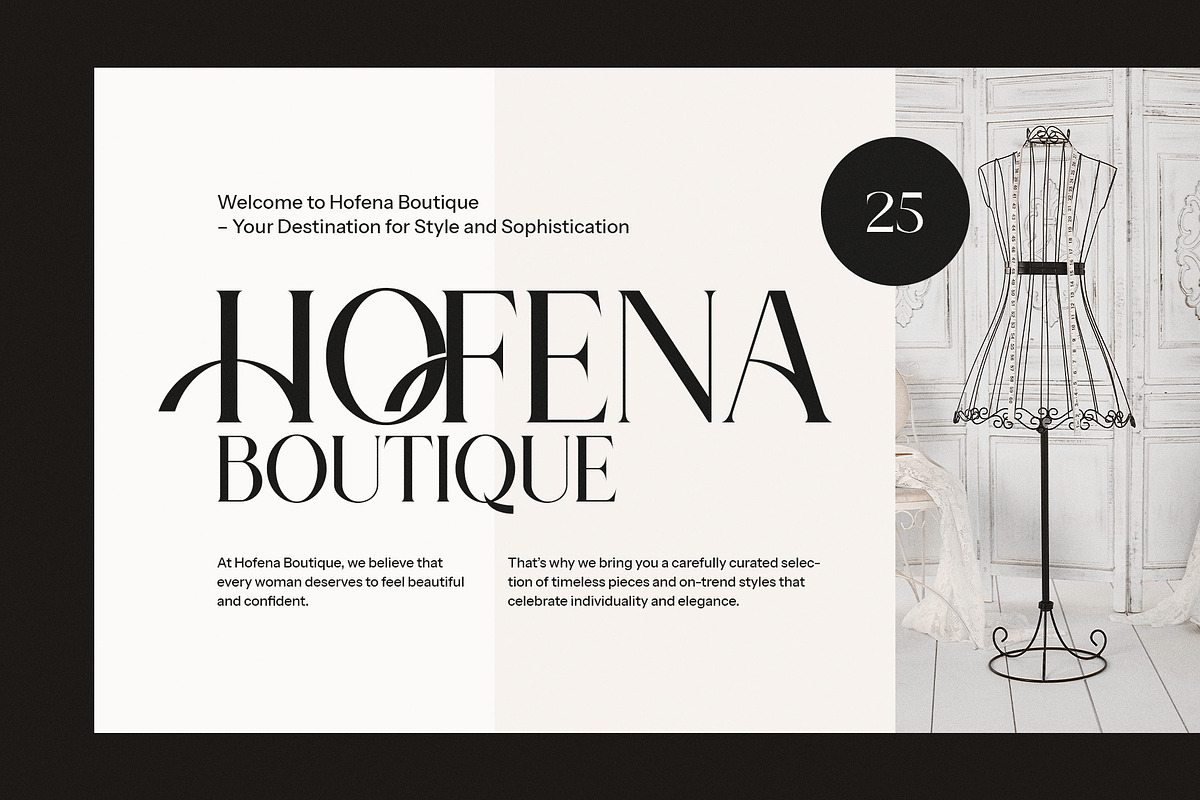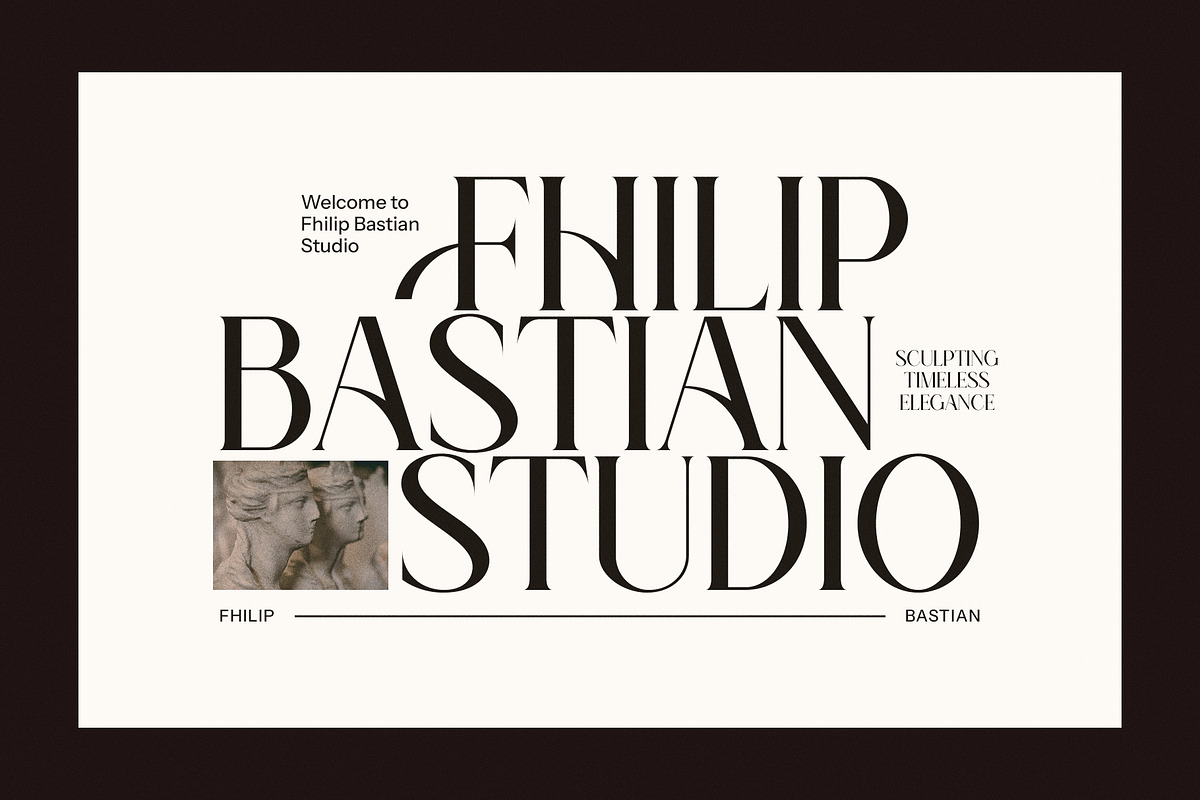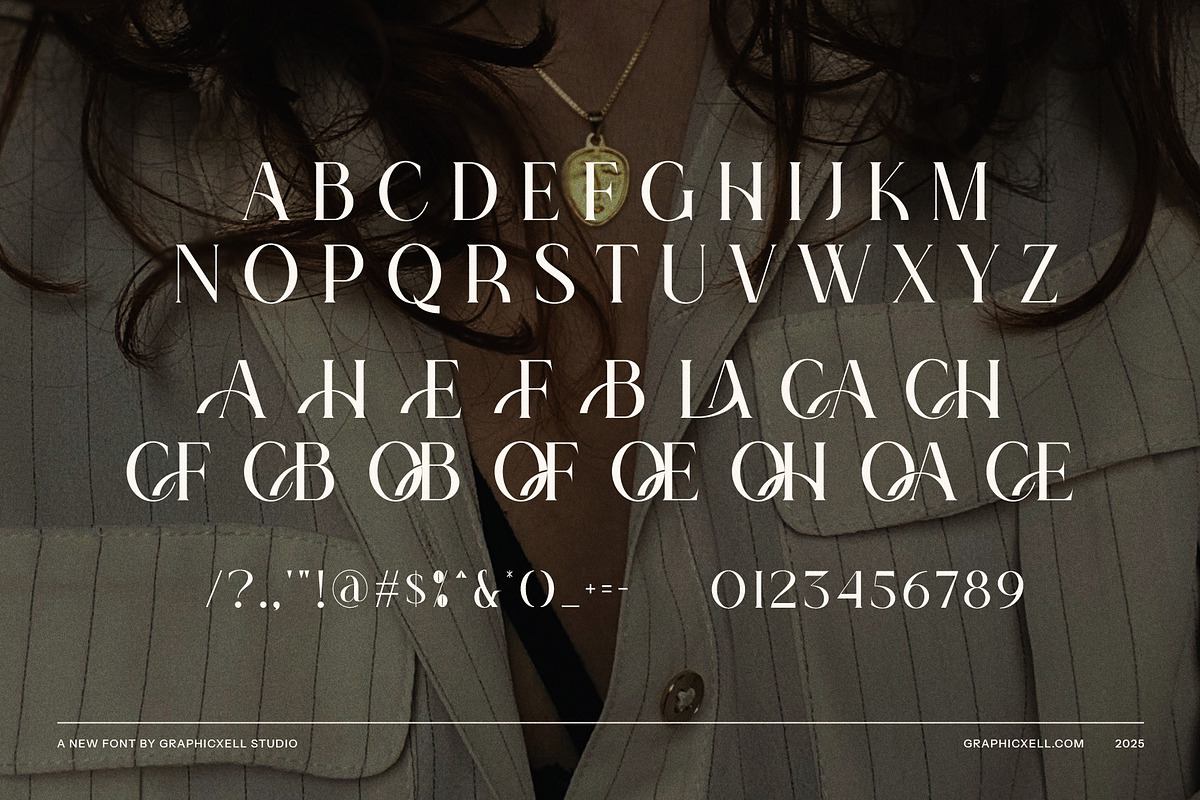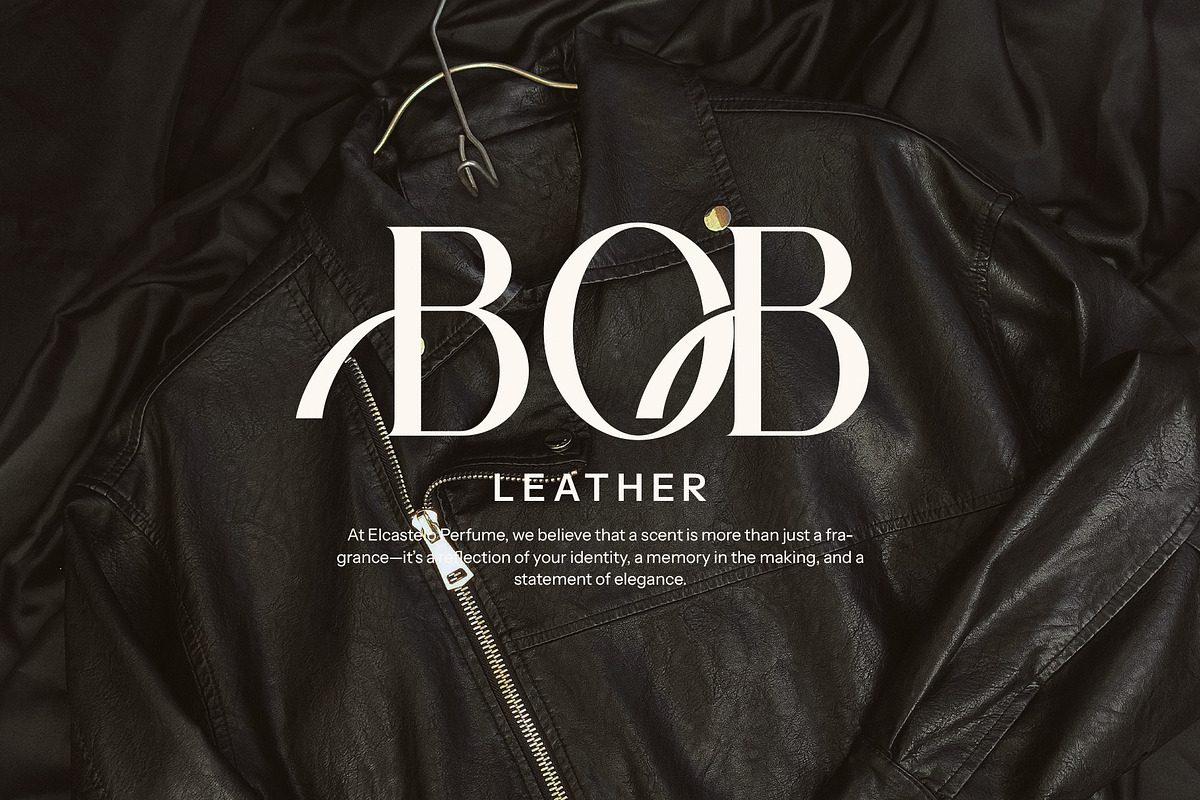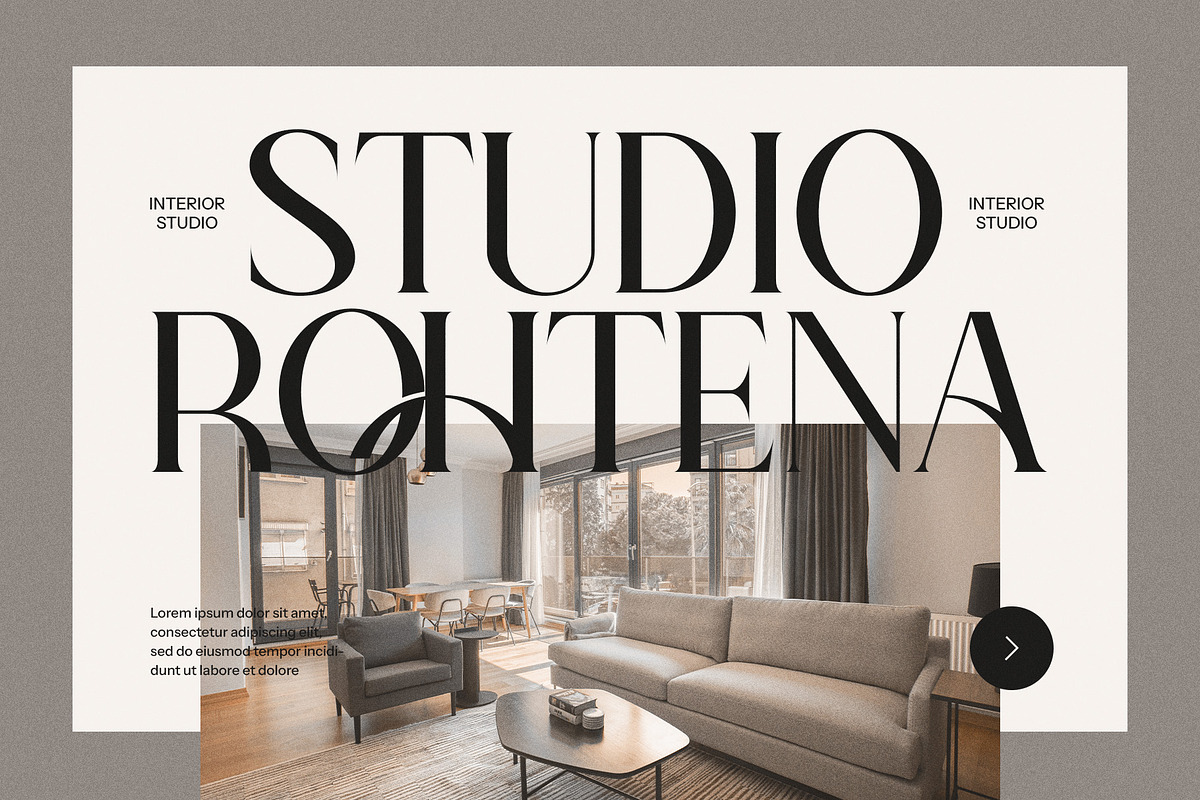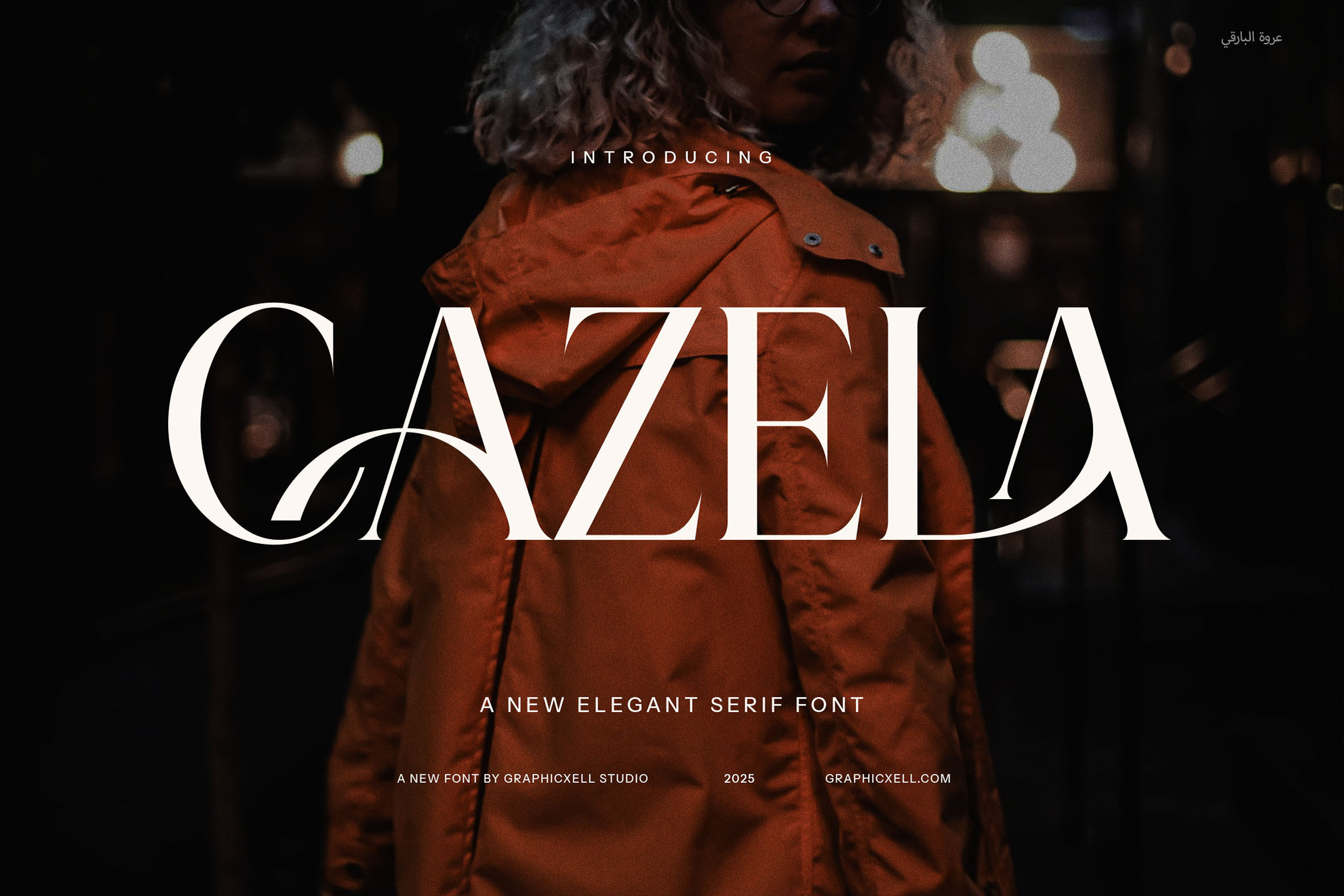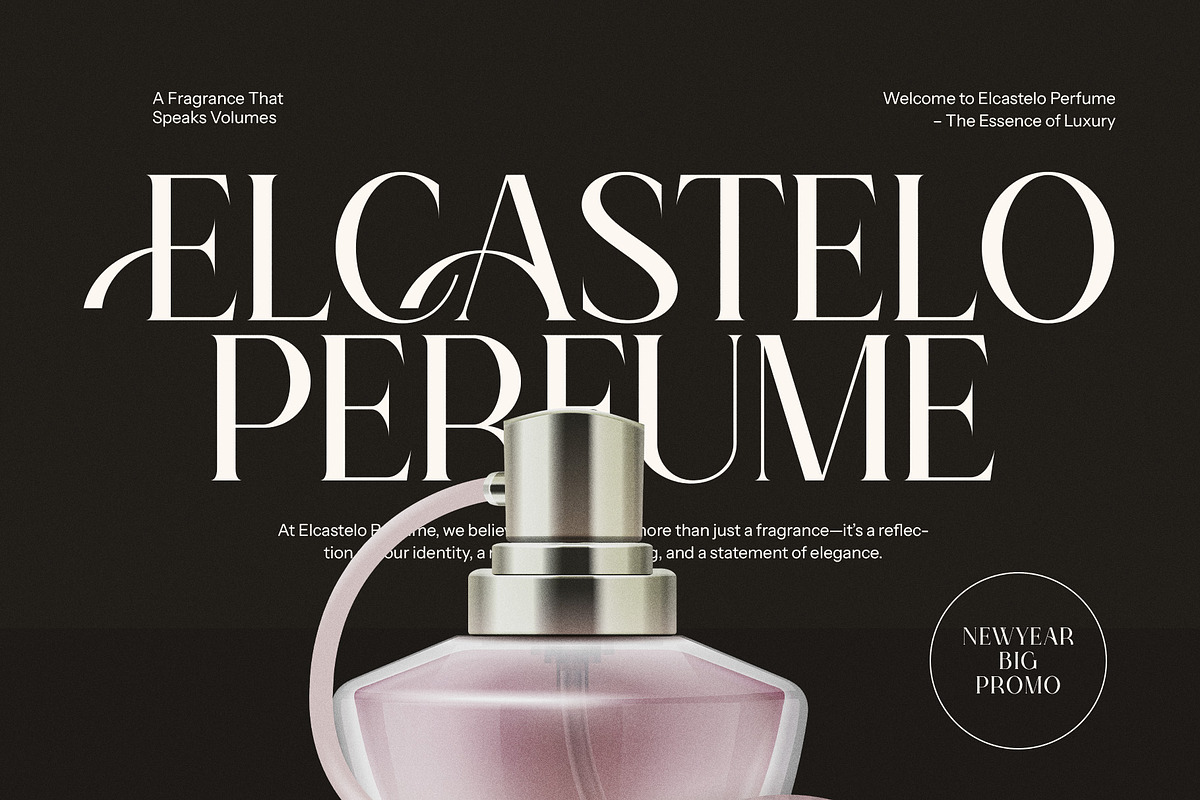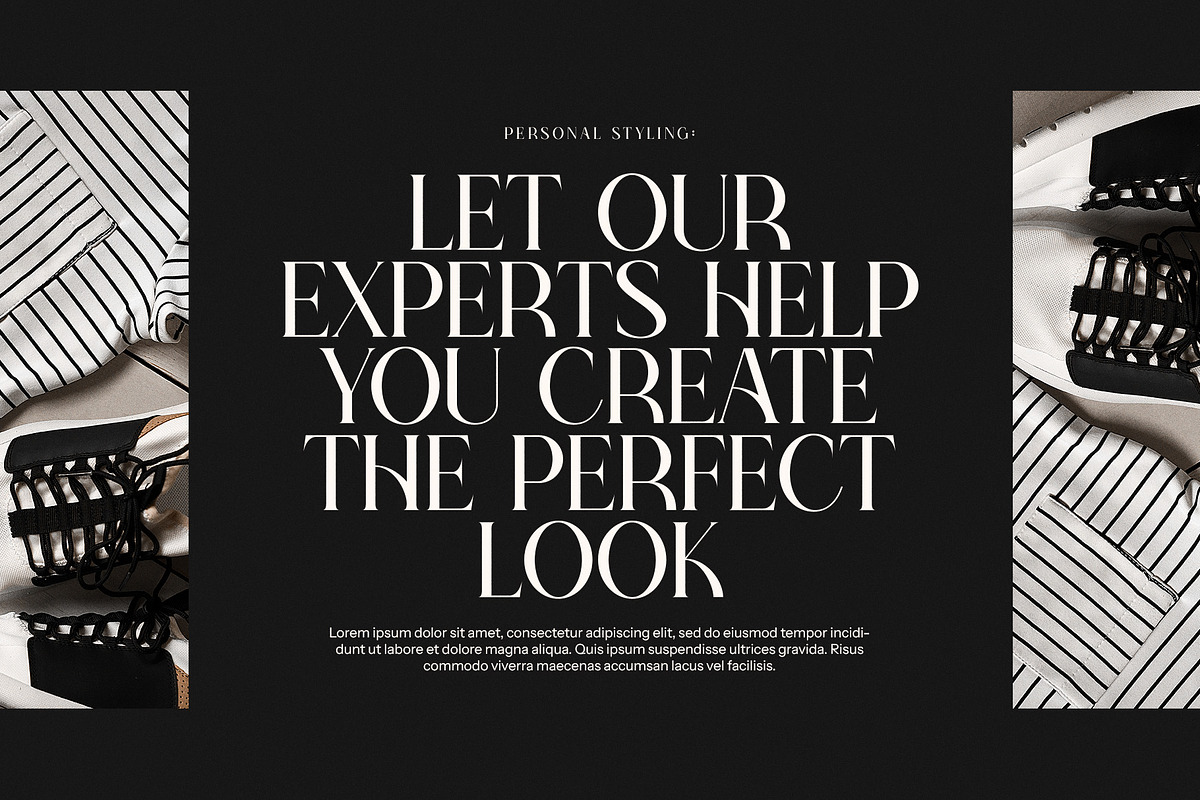
Cazela Elegant Serif Font
Cazela Elegant Serif Font is a timeless blend of modernity and sophistication, designed to enhance your creative projects with its refined charm. Featuring delicate serifs, smooth curves, and thoughtfully crafted details, Cazela is a versatile typeface that combines elegance with functionality. Its standout feature lies in its unique ligatures and alternates, which offer endless possibilities for personalization and creative expression.
Perfectly suited for logos and branding, Cazela conveys a sense of luxury and professionalism, making it ideal for high-end businesses, boutiques, and premium products. Its clean yet intricate design ensures your brand stands out while maintaining an air of elegance and sophistication.
Cazela also shines in editorial layouts, such as magazines, websites, and promotional materials. Its excellent readability and stylish forms make it a great choice for headlines, subheadings, and body text, providing a cohesive and polished look. Whether used in fashion, beauty, hospitality, or food-related projects, this font adds a distinctive touch of class.
From advertisements to product packaging and everything in between, Cazela adapts effortlessly to a wide range of applications. Its modern aesthetic and classic undertones ensure that your designs leave a lasting impression on any audience.
Cazela Elegant Serif Font is more than just a typeface—it’s a statement of style and creativity. Elevate your projects with its sophisticated design and unlock new levels of visual appeal. Cazela is the perfect choice for designers seeking elegance, versatility, and impact.